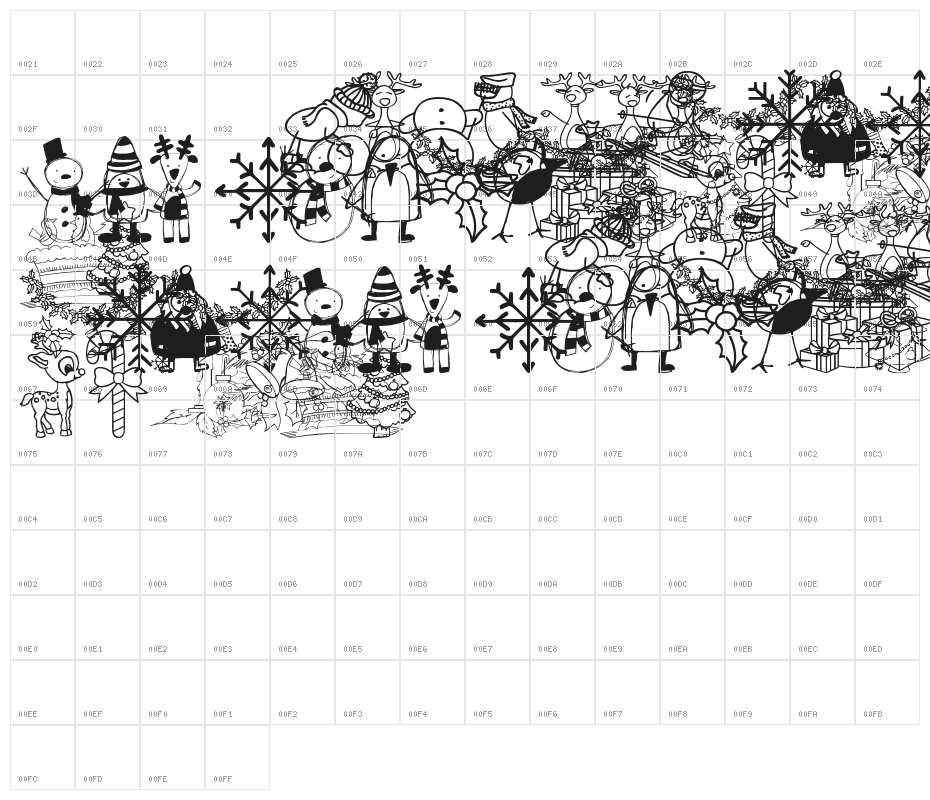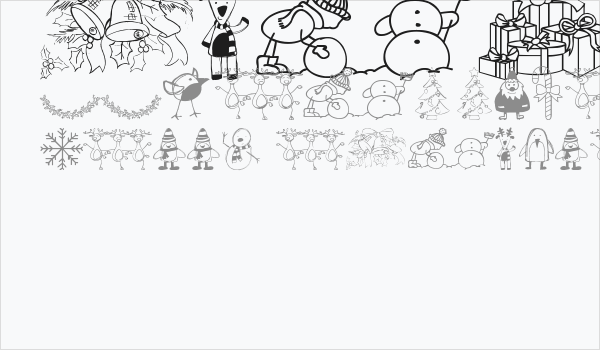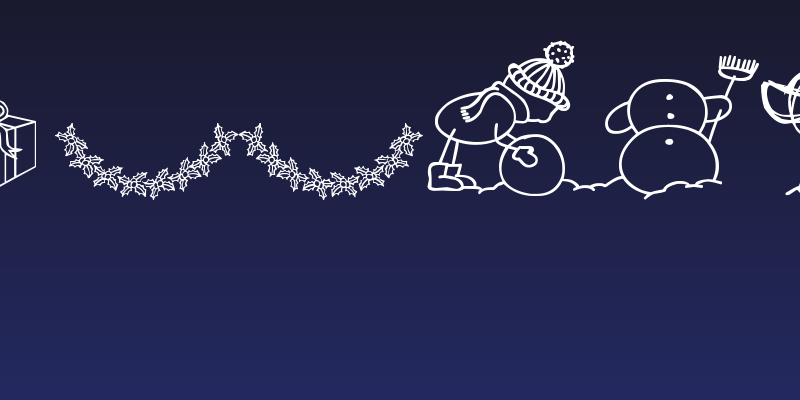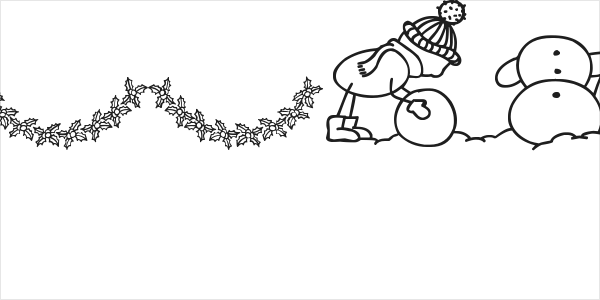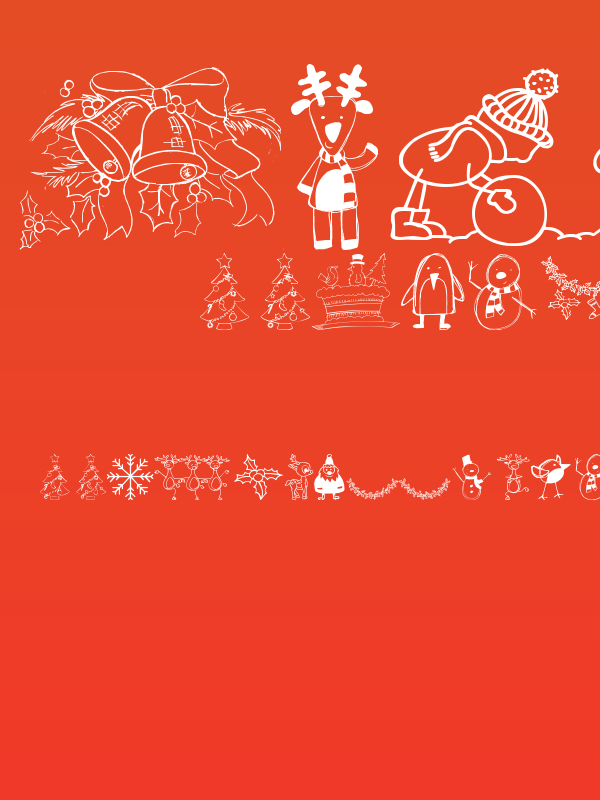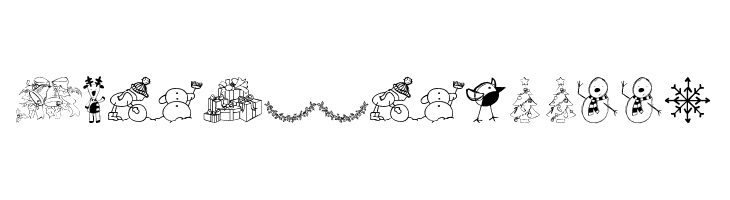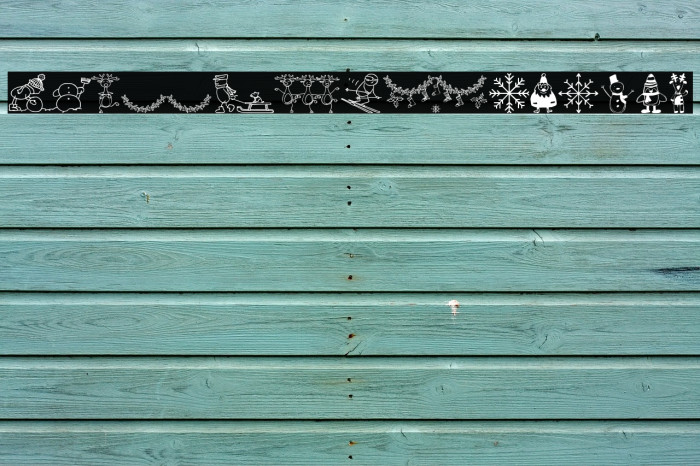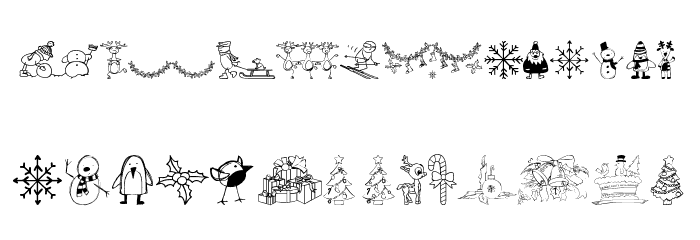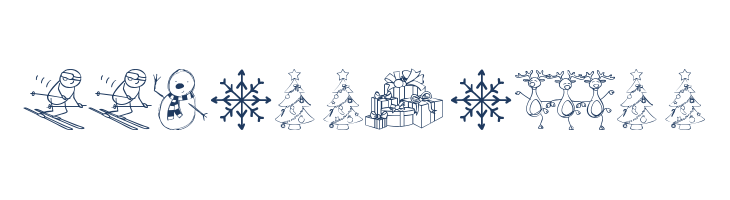
xmas cartoon Font
This decorative font features a whimsical collection of Christmas-themed illustrations. Each character is represented by a unique holiday icon, such as snowmen, reindeer, Christmas trees, and snowflakes. The style is playful and cartoonish, capturing the festive spirit with bold outlines and simple details. The icons are arranged in a consistent manner, making it easy to create a cohesive design. This font is perfect for adding a touch of holiday cheer to any project, with its charming and lighthearted aesthetic.
| Use Case | Logos, Headlines, Decorative elements |
| Proposed Projects | Ideal for holiday greeting cards, festive banners, seasonal invitations, and Christmas-themed merchandise. |